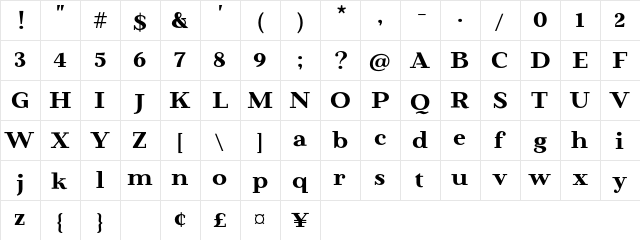
Beaumaris Demo Regular
| Designer | Roland Huse |
Design Context for Beaumaris Demo Typeface
Beaumaris Demo is a composed and adaptable typeface that performs quietly and consistently across a wide range of design contexts.